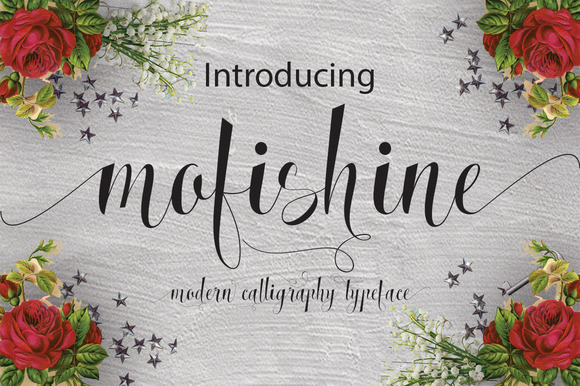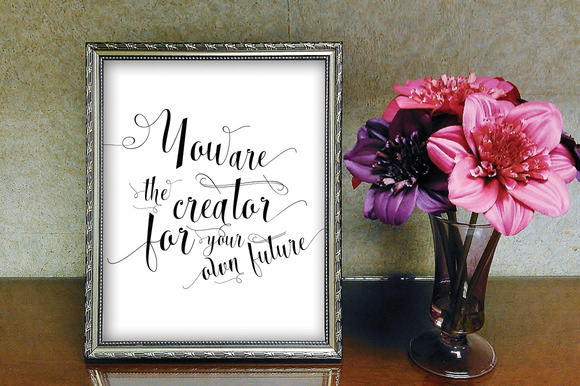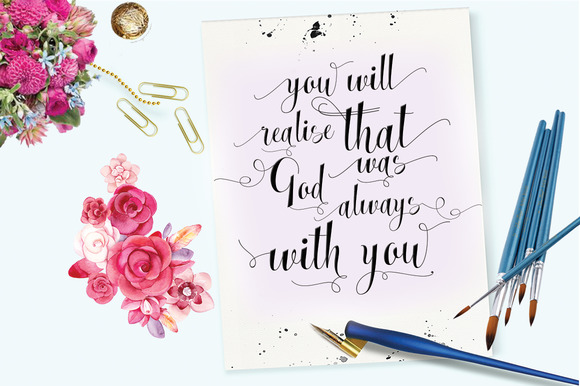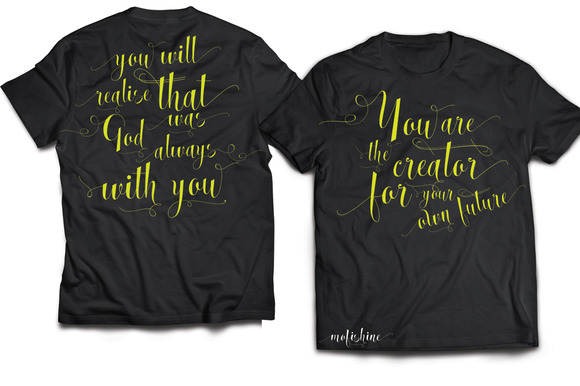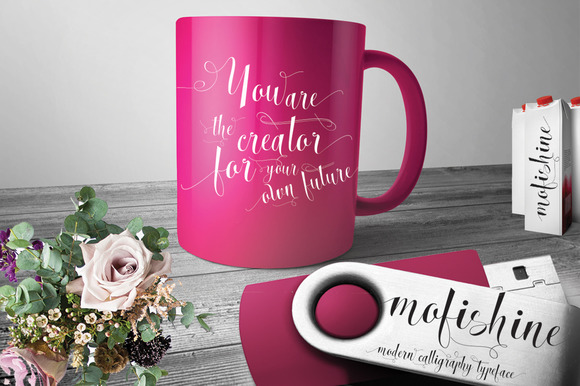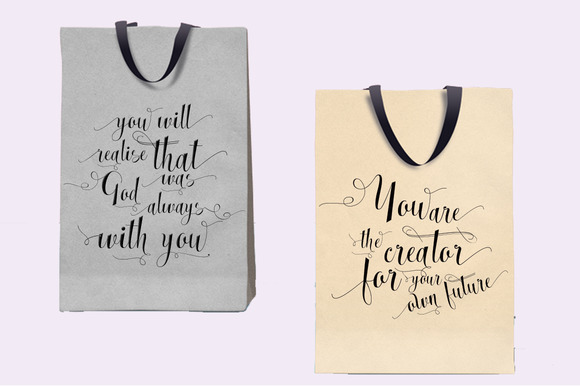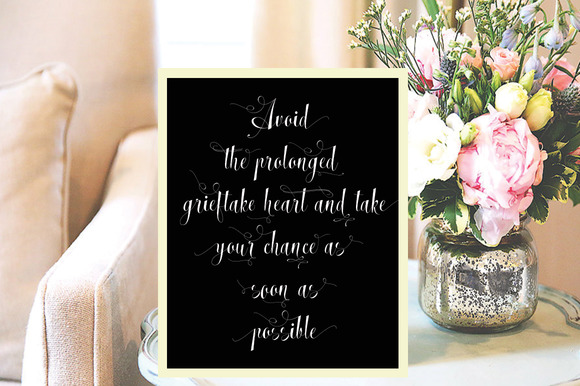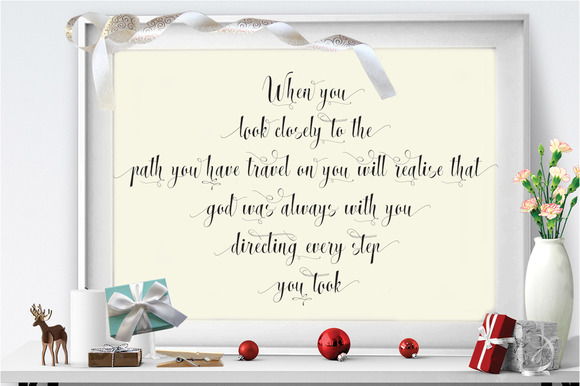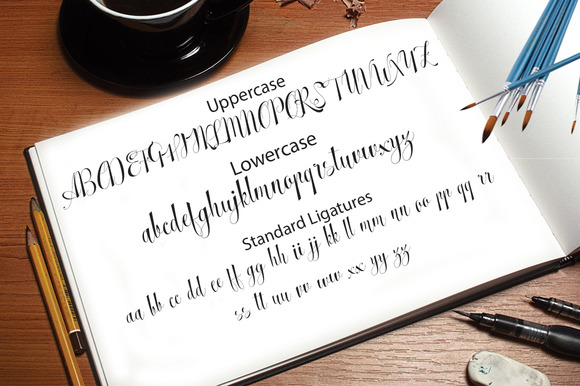
Mofishine Font
About Mofishine Font
Mofishine Script is a calligraphy style handmade script.
It’s a fresh and modern script font that is great for creating elegant and decorative items. Mofishine Script comes with 615 glyphs and features:
Stylistic Sets
Contextual Characters
Ligatures